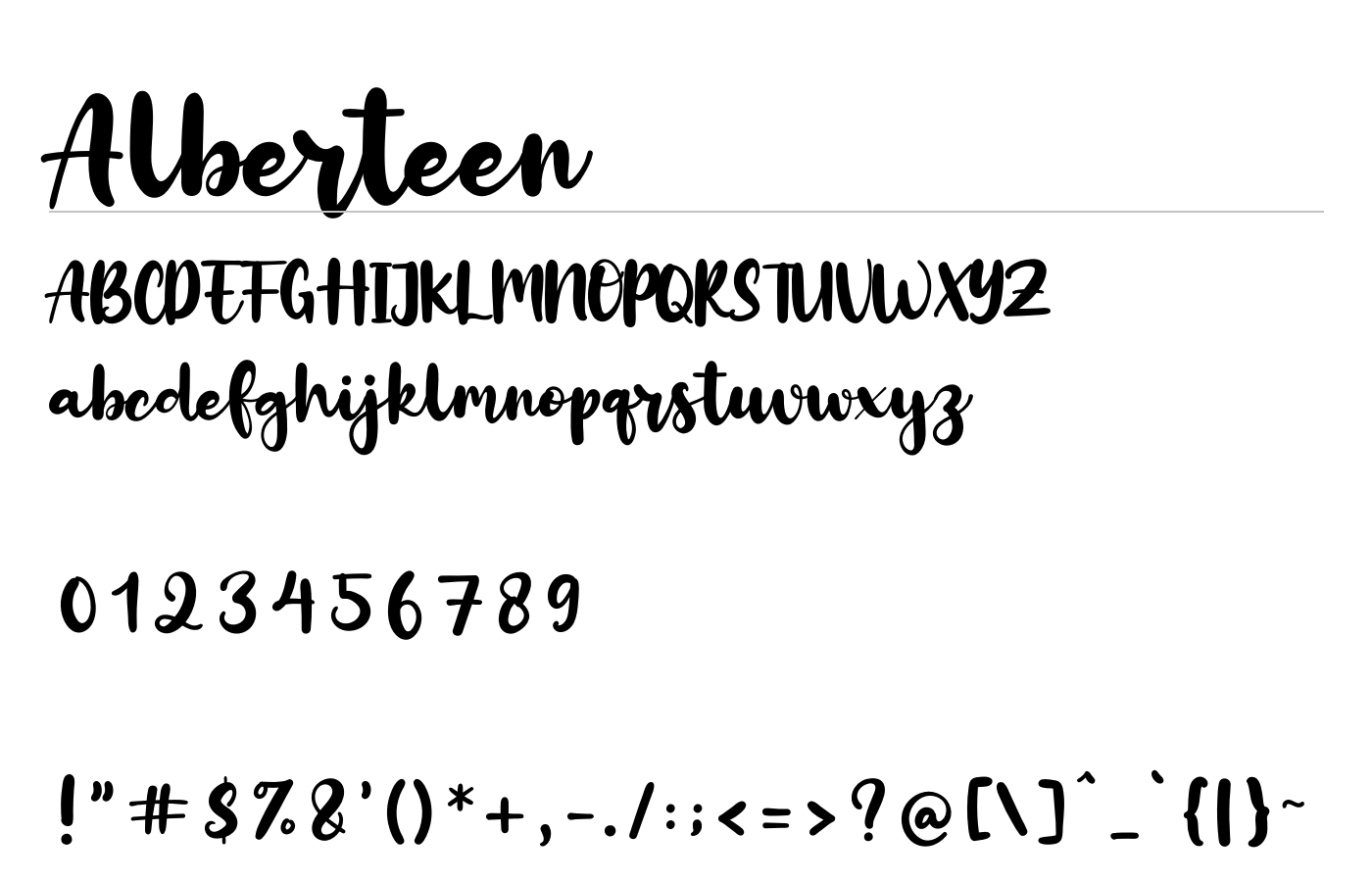
Alberteen is a lively and friendly script font featuring smooth, rounded strokes and playful letterforms that blend connected and separate characters. Its medium weight and casual style make it perfect for creative projects, giving a warm and approachable feel ideal for branding, invitations, and social media graphics. This font stands out with its charming personality while maintaining good readability for various design uses.
Alberteen Font
About Alberteen Font